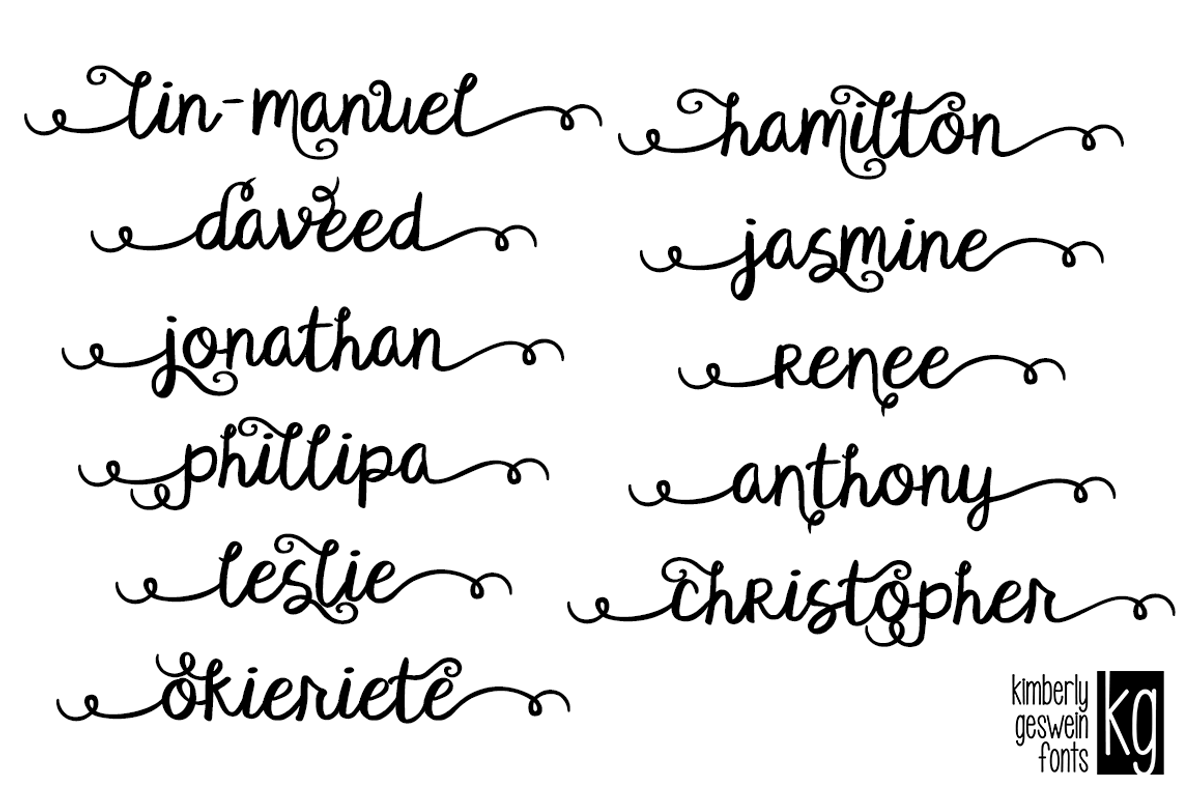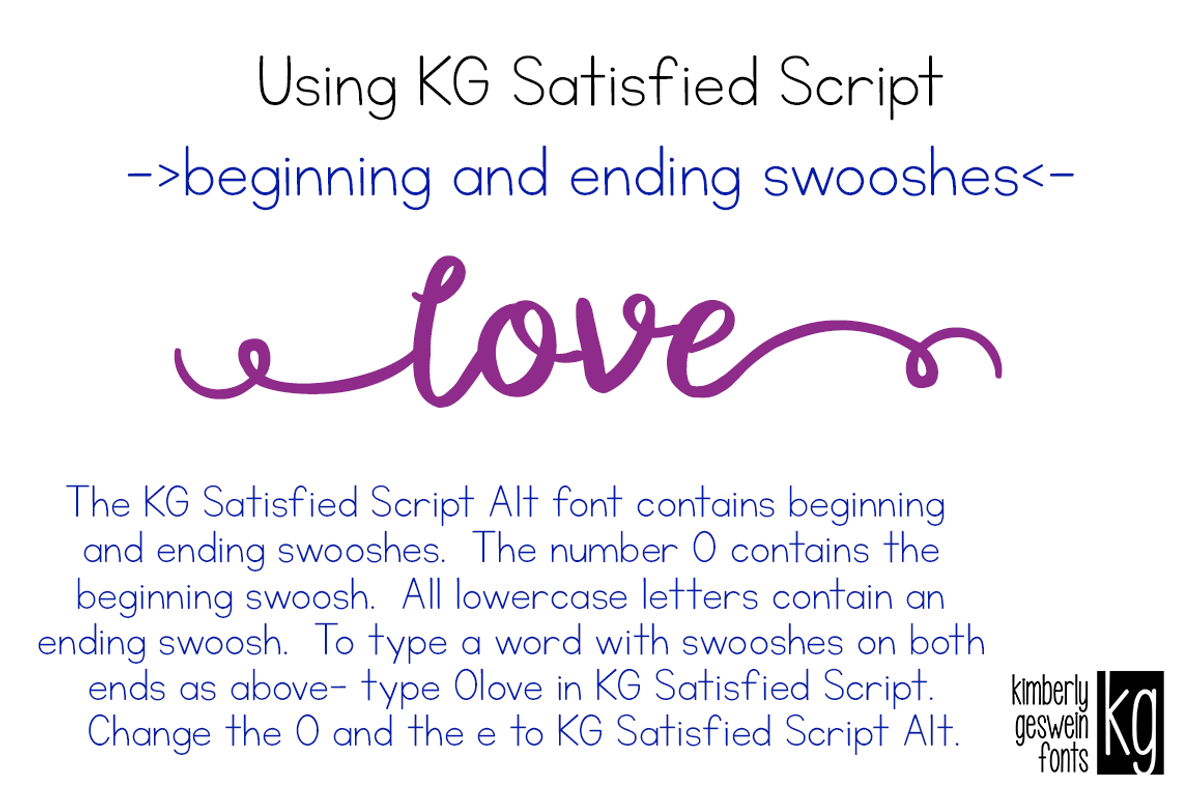
KG Satisfied Script
KG Satisfied Script by Kimberly Geswein Fonts is a font selected for branding, posters, packaging, typography.
- This whimsical hand-drawn script font includes a second font of alternates you can swap in and out for a custom look.
Why KG Satisfied Script is worth a look
KG Satisfied Script by Kimberly Geswein Fonts fits naturally into Branding, posters, packaging, typography.